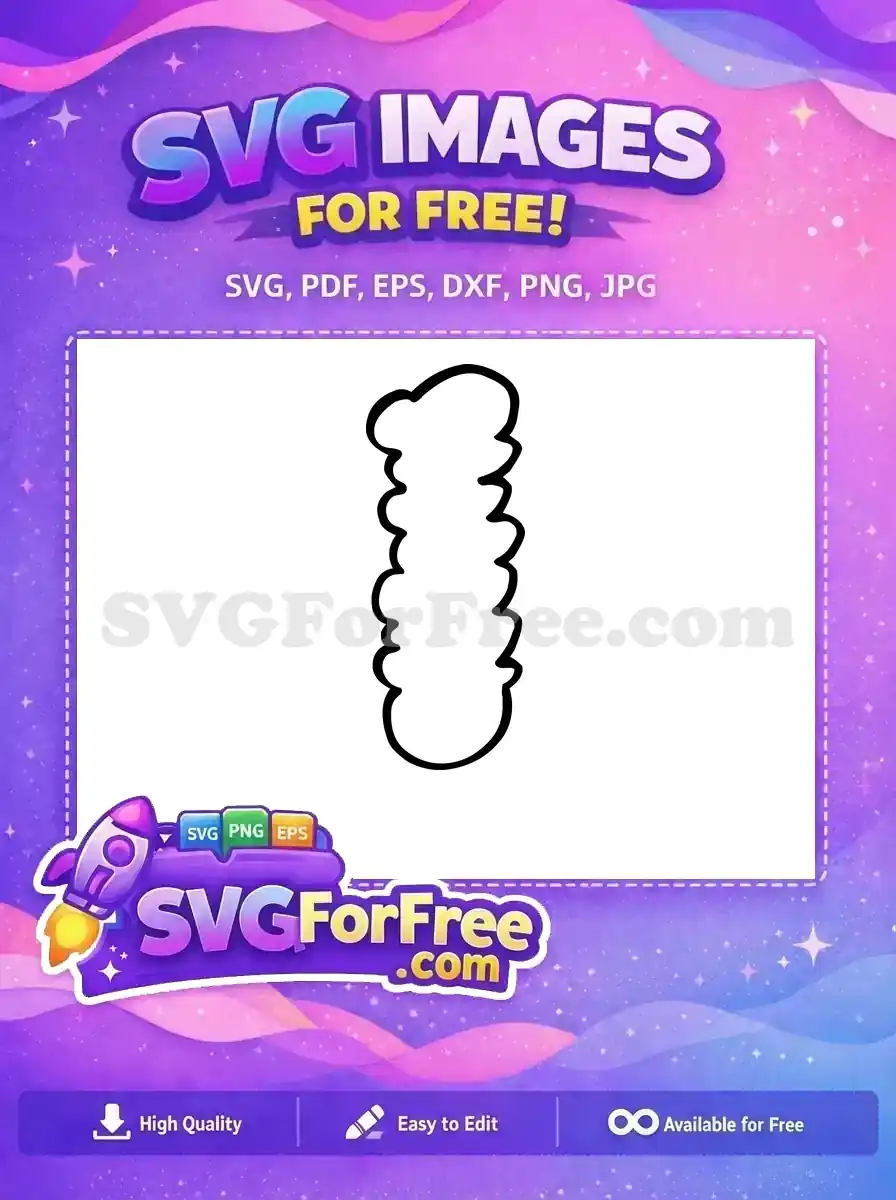
Free Letter I Font Free Alphabet Initial Free SVG 2 – Instant Download
Soft and rounded letter I with a foamy outline, provided as a free graphic download.
Free Letter I Font Free Alphabet Initial Free SVG 2